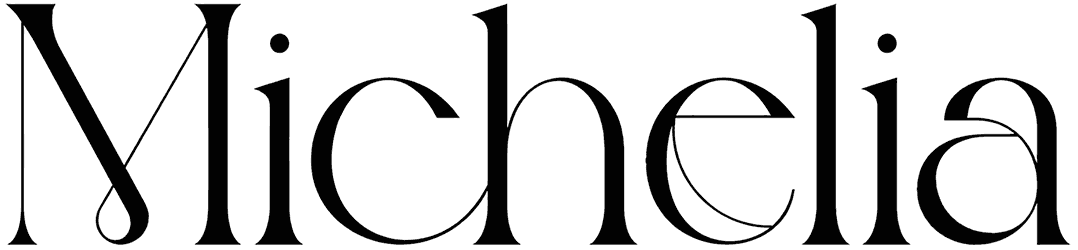
Michelia Font
Thanks to people’s craving for nostalgia, you can become a famous designer using Michelia. This retro font has a stylish design trend inspired by classic lines and fonts and can be ideal for logo designs, websites, book covers, and any other printed text.
The critical elements in this serif font have been well respected and have brought a great appearance, creating an authentic feeling for your readers.